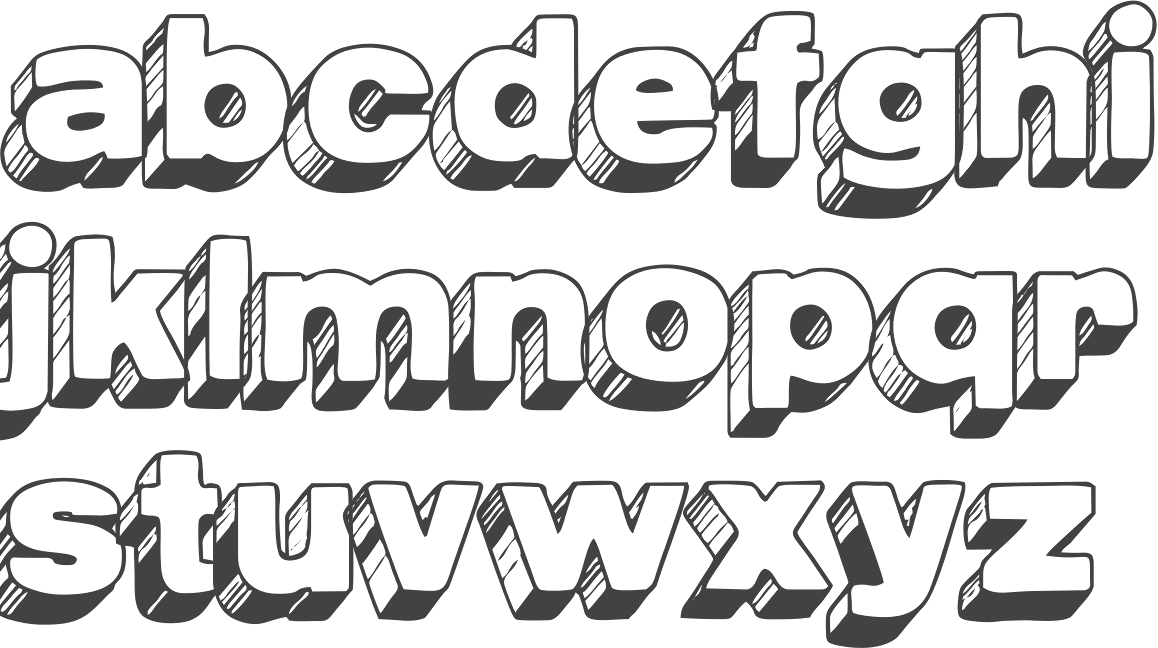
Cool Postcard Fonts 2022
Cool Postcard Fonts 2022. There's a dingbats font for every occasion. Are you looking for the perfect.
61 professional postcard fonts to download please note: The postcard font family is best used in short passages about as much text as. The postcard is a handcrafted display typeface.
This will turn the font into a series of vector letter shapes. Postcard is a casual handwriting typeface based on the pen lettering of perry whittle. Jul 22, 2021 742 18.
Az postcard is a display sans font family. The postcard font family is best used in short passages about as much text as. Postcard is a casual handwriting typeface based on the pen lettering of perry whittle.
Photo(s) by cardboardamerica@gmail.com jordan smith on flickr. This postcard font is especially great for thank you notes and invitations due to the personal touch it has. Soulmarker the soulmarker handwritten postcard font comes in light.